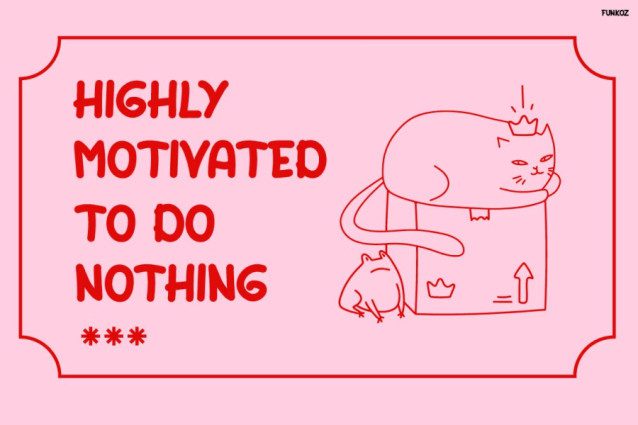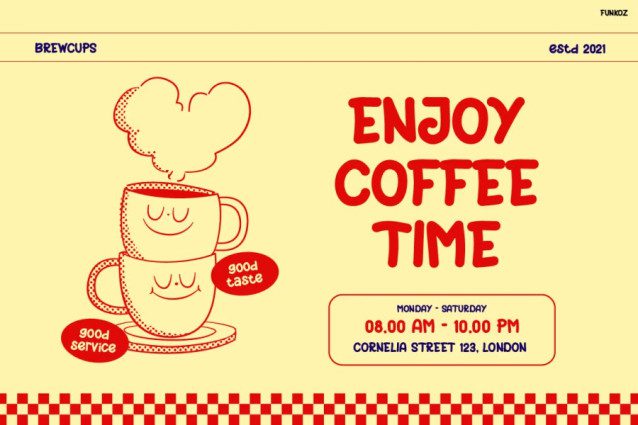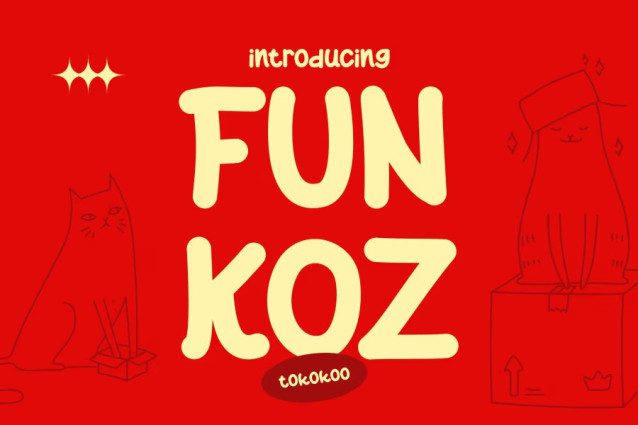
Funkoz Font
Funkoz Font it’s a celebration of joy, curiosity, and imagination! Each letter bounces with personality, capturing the essence of childhood fun and artistic flair. With its soft curves, funky shapes, and smooth flow, this font instantly adds a lively vibe to your designs. It feels hand-drawn yet perfectly balanced, making it both playful and easy to read.
Imagine a font that brings to life doodles, laughter, and those colorful moments of creativity — that’s FUNKOZ. It’s perfect for anyone who wants to give their designs that adorable, hand-crafted touch without losing modern appeal. The quirky edges and fun proportions create a friendly, approachable aesthetic that works beautifully in both digital and print designs. Whether used for branding, packaging, or social media, FUNKOZ instantly stands out with its charm and positivity.